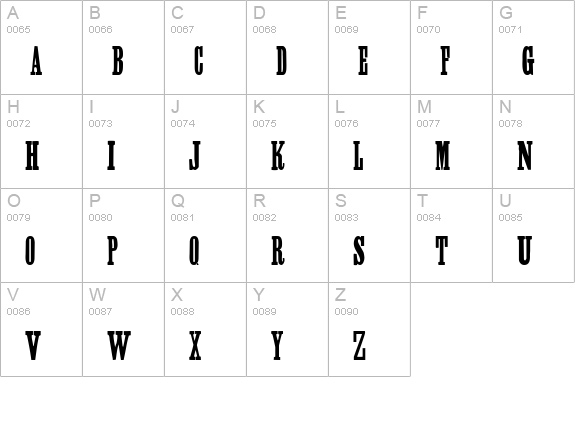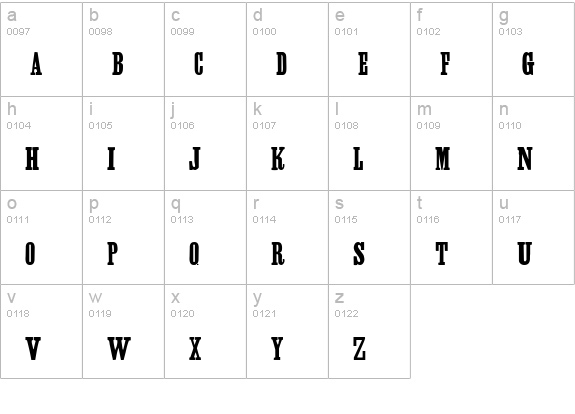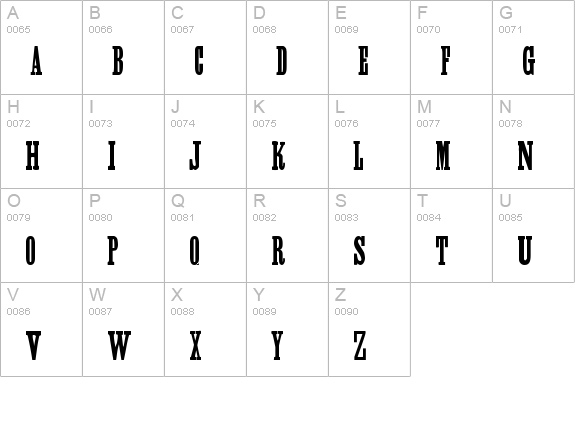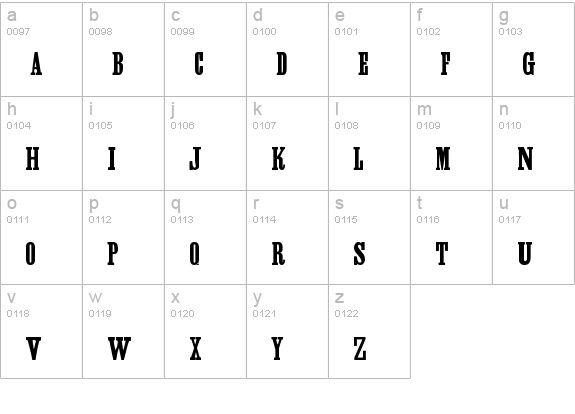
Academy Font Details
Academy font is a classic and elegant typeface that exudes sophistication and professionalism. Its timeless design makes it perfect for a wide range of projects, from invitations to branding materials. The clean lines and balanced proportions of Academy font make it easy to read and versatile to use in various design applications. What makes Academy font even more appealing is that it is available for free download at FontsMarket.com. This means that you can easily access this high-quality font without having to worry about any costs. Whether you are a professional designer looking for a new addition to your font collection or a hobbyist looking to spruce up your personal projects, Academy font is a fantastic choice that won't break the bank. Download Academy font for free today at FontsMarket.com and elevate your designs with this sophisticated and timeless typeface.